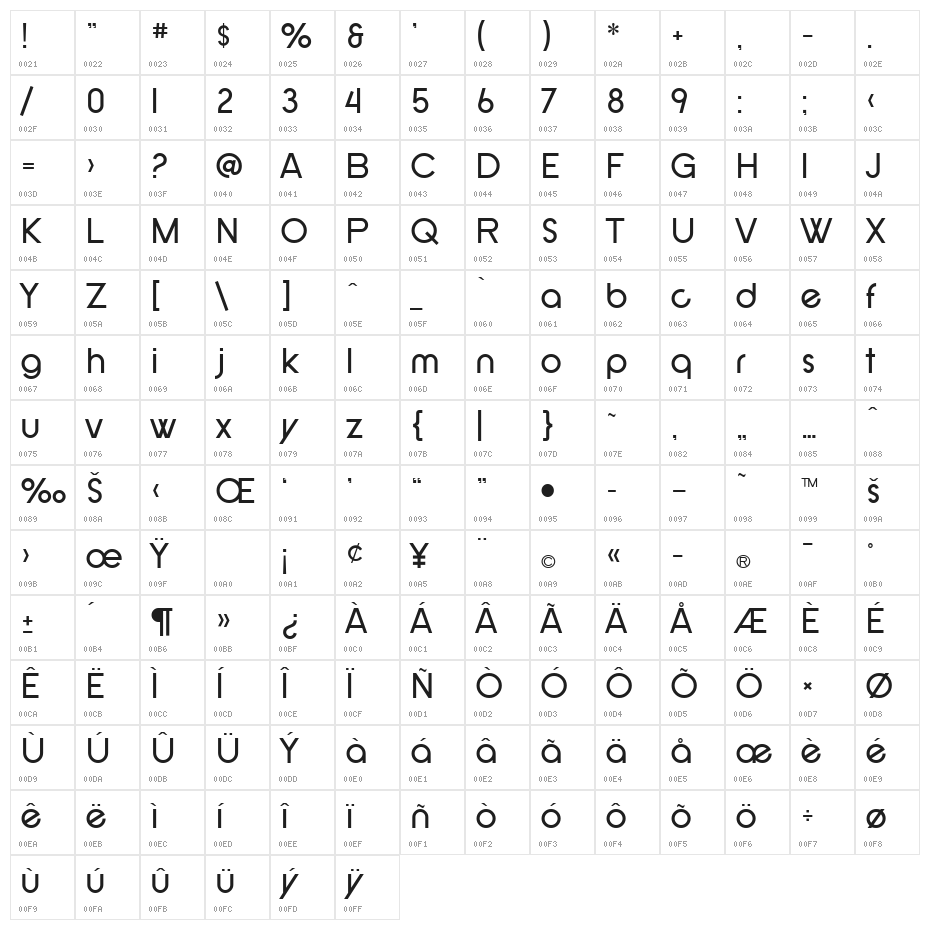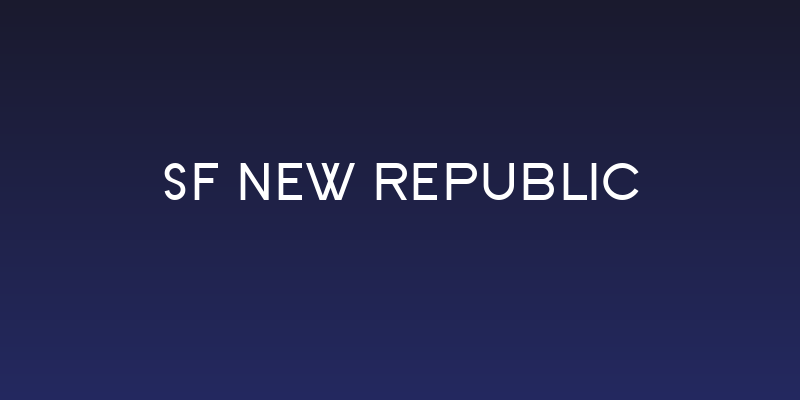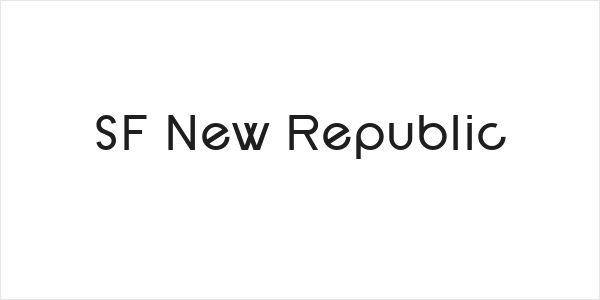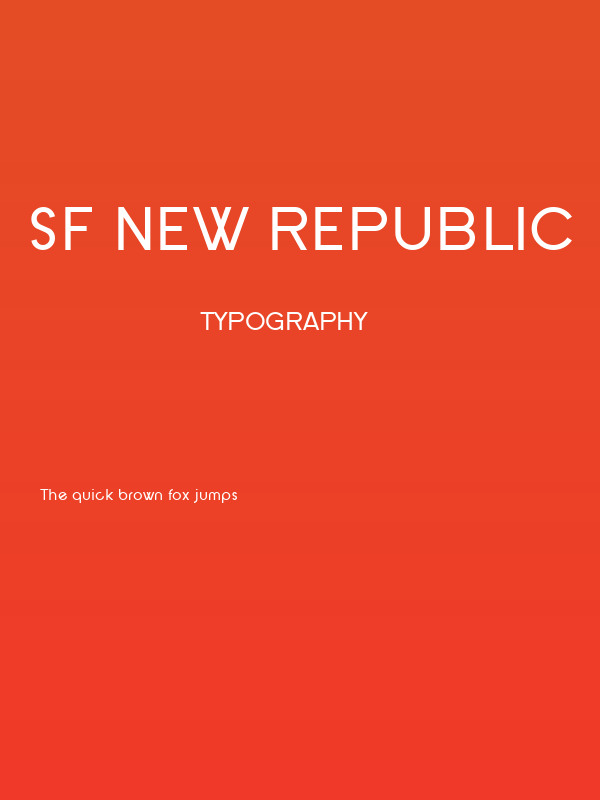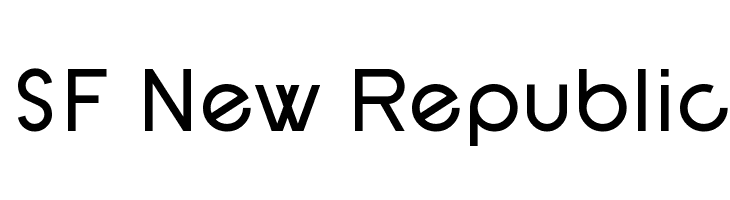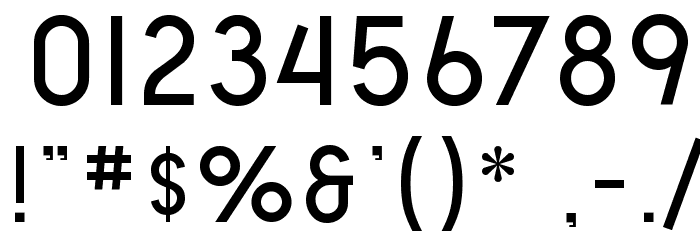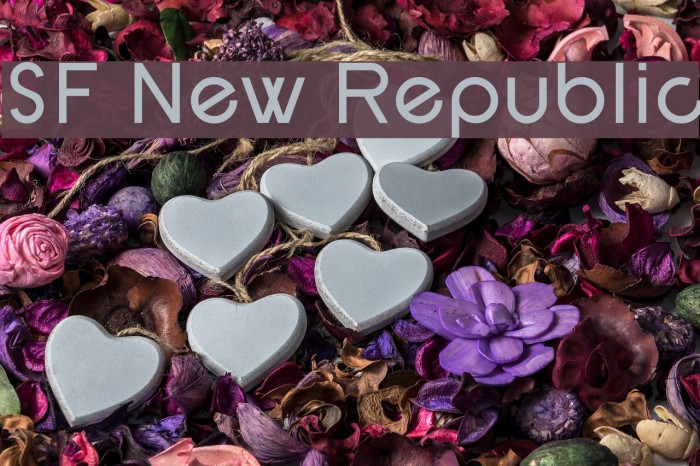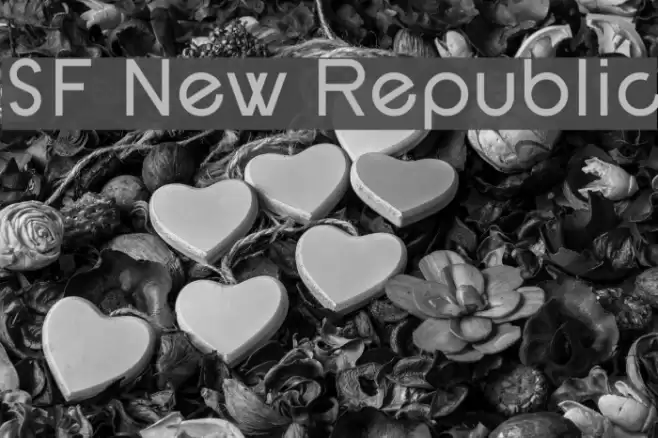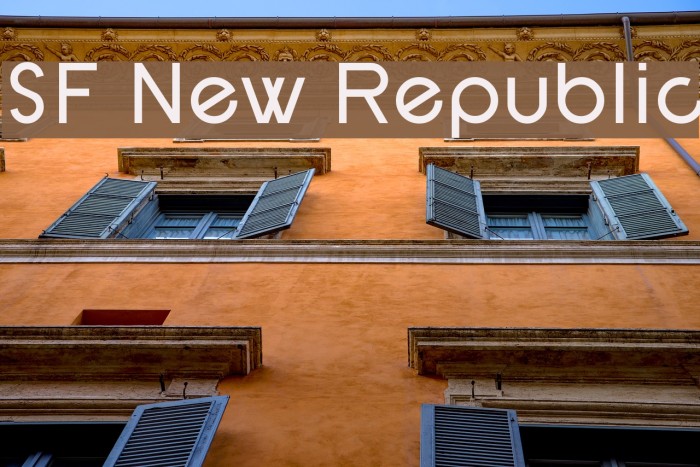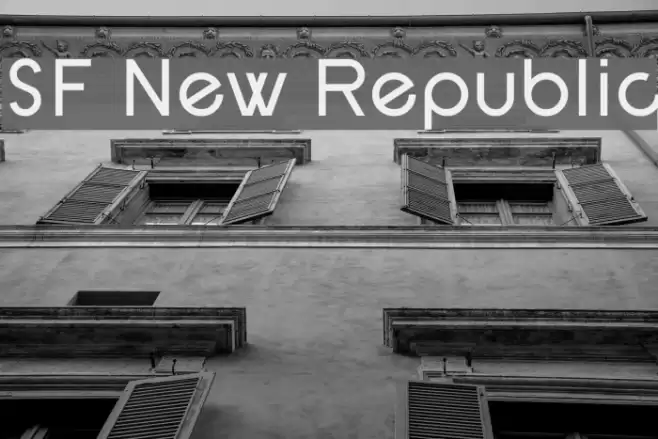
SF New Republic Font
This font features a clean and modern sans-serif style with a geometric structure. The characters are well-balanced with consistent stroke widths, providing a harmonious and professional appearance. The uppercase letters are bold and commanding, while the lowercase letters maintain a friendly and approachable feel. The numerals are clear and easily distinguishable, making them suitable for various applications. Special characters are designed with simplicity and clarity in mind, ensuring they integrate seamlessly with the rest of the typeface. Overall, this font is versatile and suitable for both digital and print media.